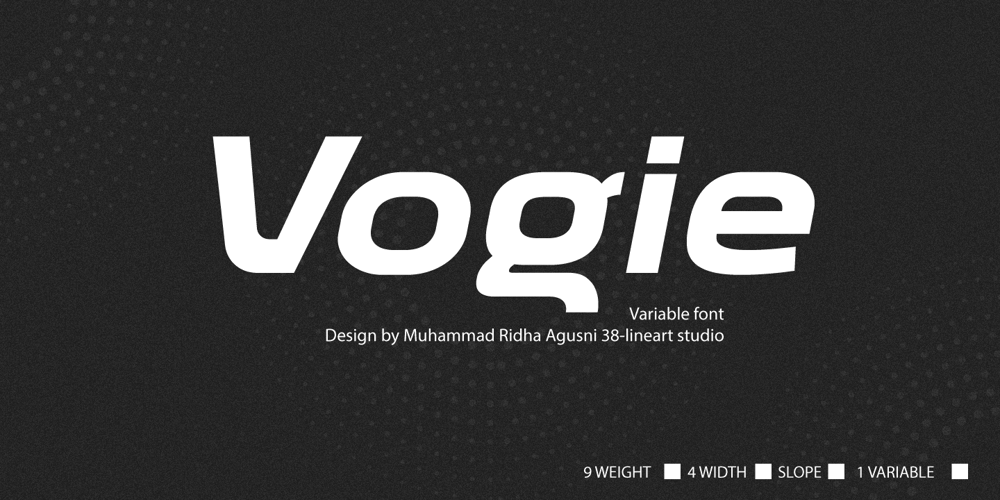
Vogie Font Family was designed by Muhammad Ridha Agusni and published by 38-lineart. Vogie contains 73 styles and family package options. Vogie is a sporty and modern sans serif font, comes in 4 widths, 9 weights and is available in regular and oblique. 62 fonts encapsulated in one variable font makes “vogie” more modern and easy to use.